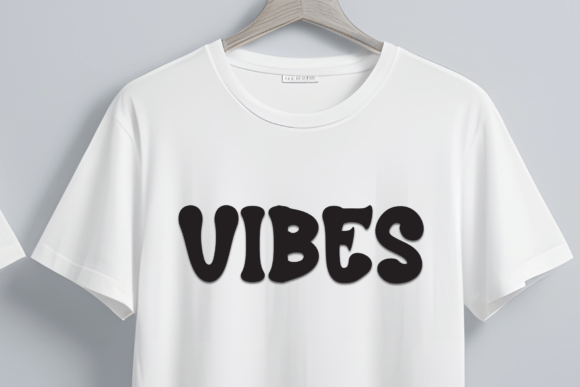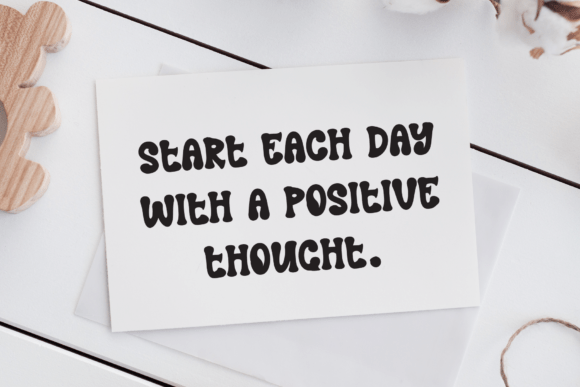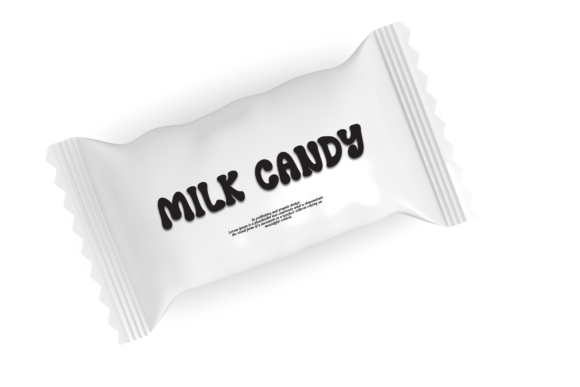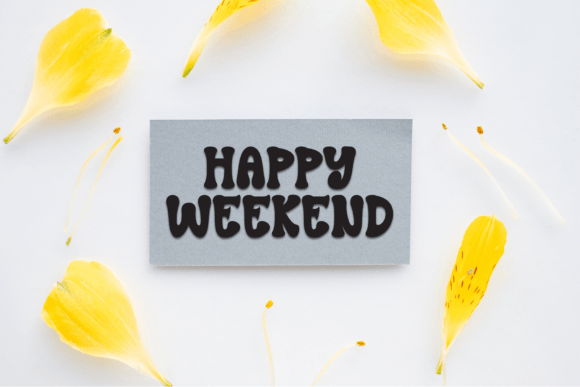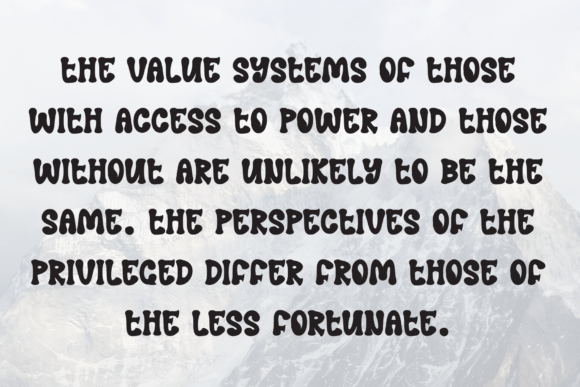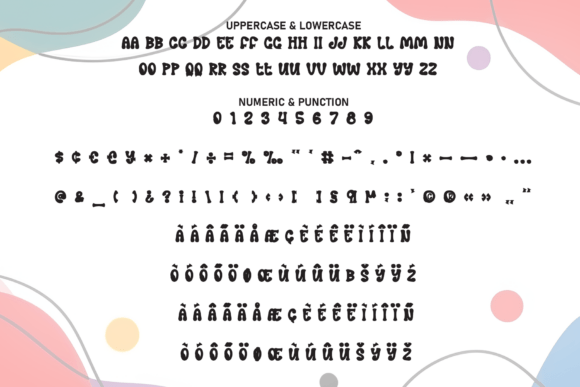
Introducing Beauty Monday Font: The Perfect Blend of Modern Simplicity and Playful Charm
In the world of typography, fonts play a crucial role in conveying the tone and personality of a brand or design. With so many fonts available, it can be challenging to find one that strikes the perfect balance between modern simplicity and playfulness. However, look no further than the Beauty Monday Font, a casual display font that is sure to capture your attention and inspire your creativity.
What is Beauty Monday Font?
Beauty Monday Font is a carefully crafted display font that blends modern simplicity with a playful, approachable vibe. Its clean shapes, soft edges, and well-balanced letterforms make it an ideal choice for designers and crafters looking to add a fresh and friendly touch to their projects. Whether you’re working on posters, branding, packaging, or social media graphics, this font is sure to deliver both readability and personality.
Key Features of Beauty Monday Font
So, what sets Beauty Monday Font apart from other fonts? Here are some of its key features:
- Clean Shapes: The font features clean and simple shapes that give it a modern and sleek look.
- Soft Edges: The soft edges of the font add a touch of playfulness and approachability, making it perfect for designs that require a friendly tone.
- Well-Balanced Letterforms: The letterforms are carefully crafted to be well-balanced, ensuring that the font is easy to read and visually appealing.
- Versatile Character: The font has a versatile character that makes it suitable for a wide range of design projects, from posters and branding to packaging and social media graphics.
- Eye-Catching Appeal: The font’s unique blend of modern simplicity and playfulness makes it eye-catching and engaging, perfect for designs that require a bit of personality.
Why Choose Beauty Monday Font?
With so many fonts available, why should you choose Beauty Monday Font for your next design project? Here are just a few reasons:
- Readability: The font is designed to be easy to read, making it perfect for designs that require a clear and concise message.
- Personality: The font’s playful and approachable vibe adds a touch of personality to any design, making it perfect for brands that want to stand out.
- Versatility: The font is versatile and can be used for a wide range of design projects, from posters and branding to packaging and social media graphics.
- Fresh and Friendly: The font adds a fresh and friendly touch to any design, making it perfect for brands that want to convey a sense of approachability and warmth.
How to Use Beauty Monday Font
Beauty Monday Font is easy to use and can be incorporated into a wide range of design projects. Here are a few ideas to get you started:
- Posters: Use the font to create eye-catching posters that grab attention and convey a clear message.
- Branding: Use the font to create a unique and memorable brand identity that stands out from the competition.
- Packaging: Use the font to create packaging that is both functional and visually appealing.
- Social Media Graphics: Use the font to create social media graphics that are engaging and shareable.
In conclusion, Beauty Monday Font is a casual display font that is sure to capture your attention and inspire your creativity. With its modern simplicity, playful charm, and versatile character, it’s the perfect choice for designers and crafters looking to add a fresh and friendly touch to their projects. Whether you’re working on posters, branding, packaging, or social media graphics, this font is sure to deliver both readability and personality.